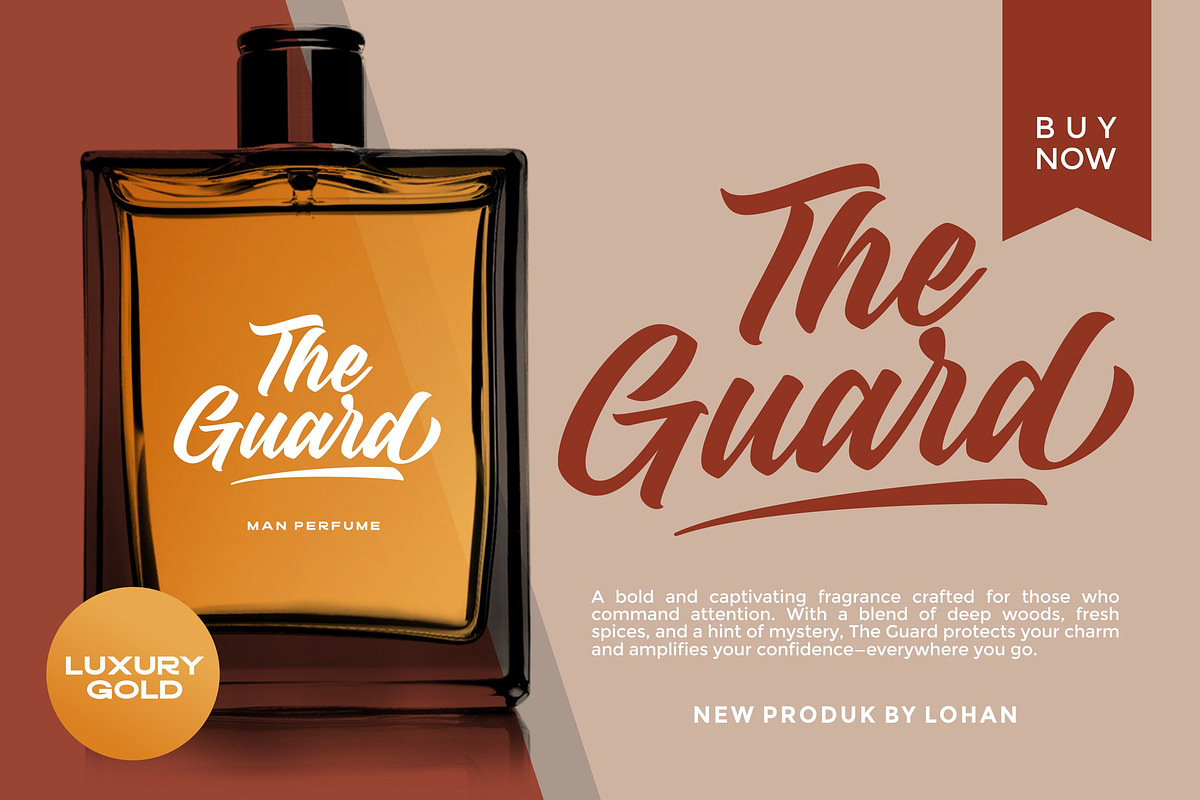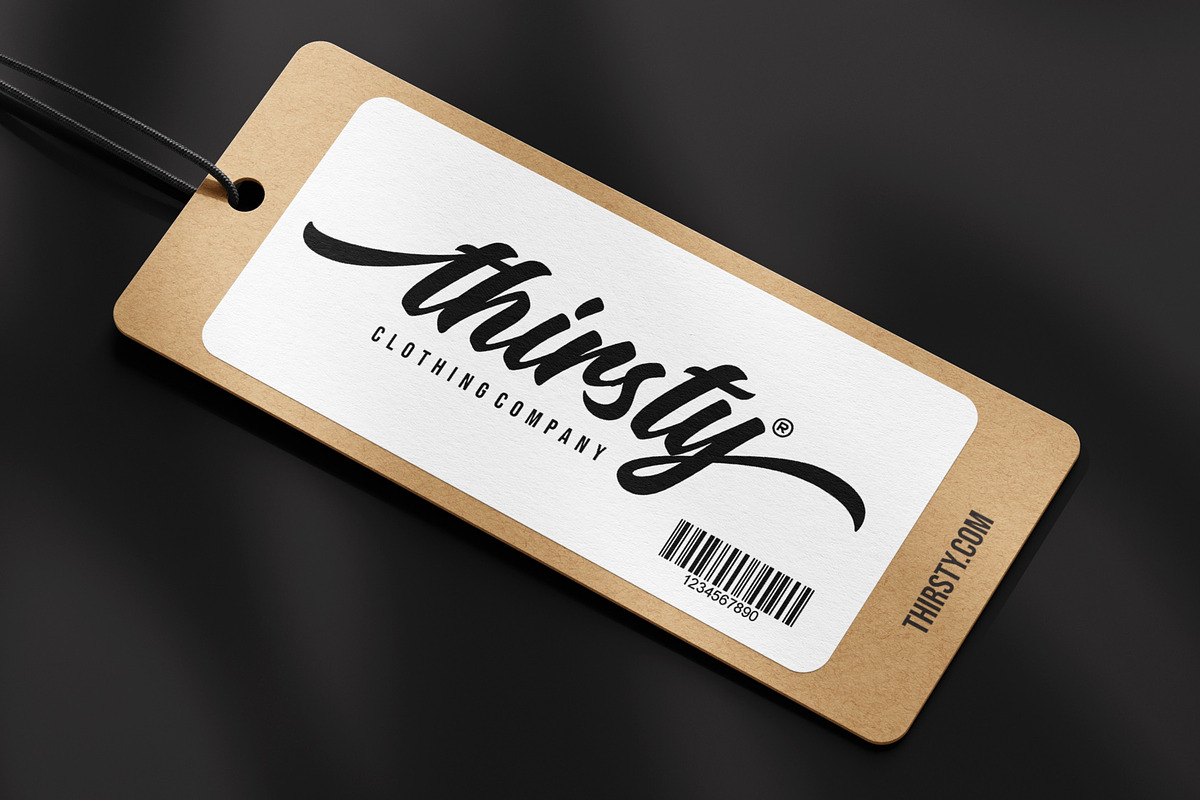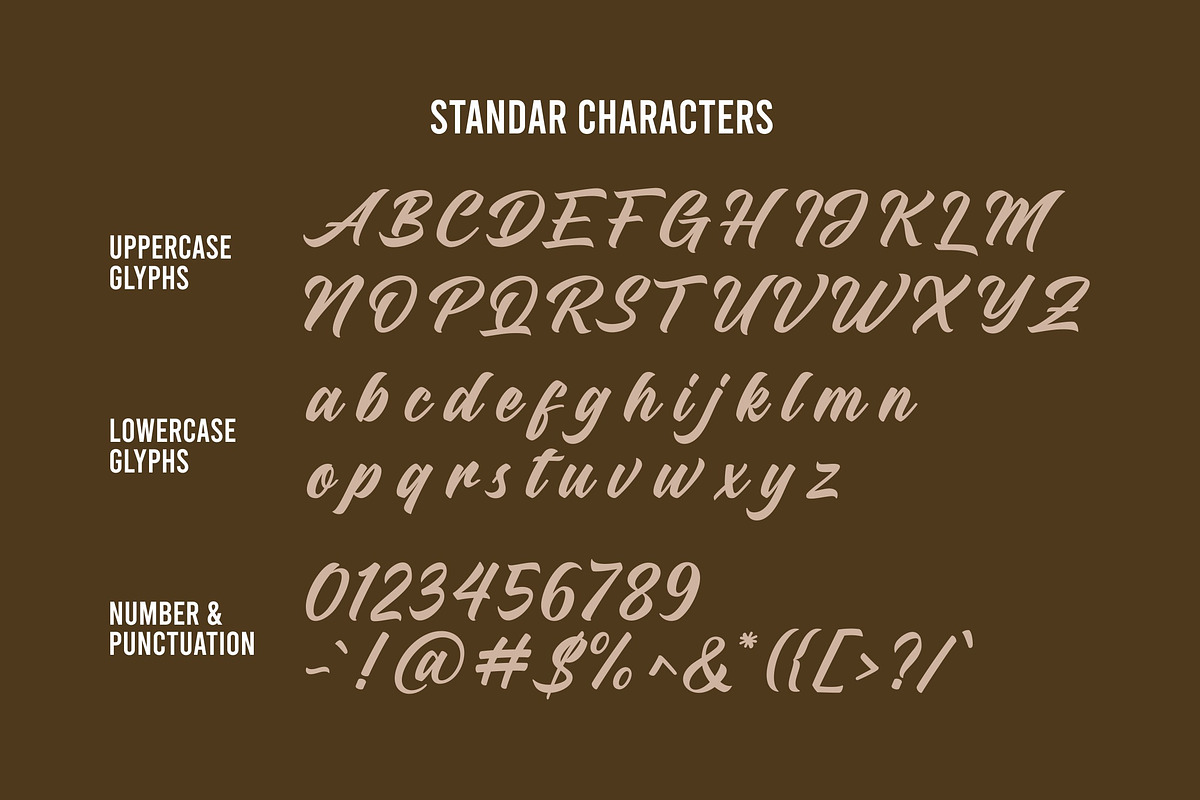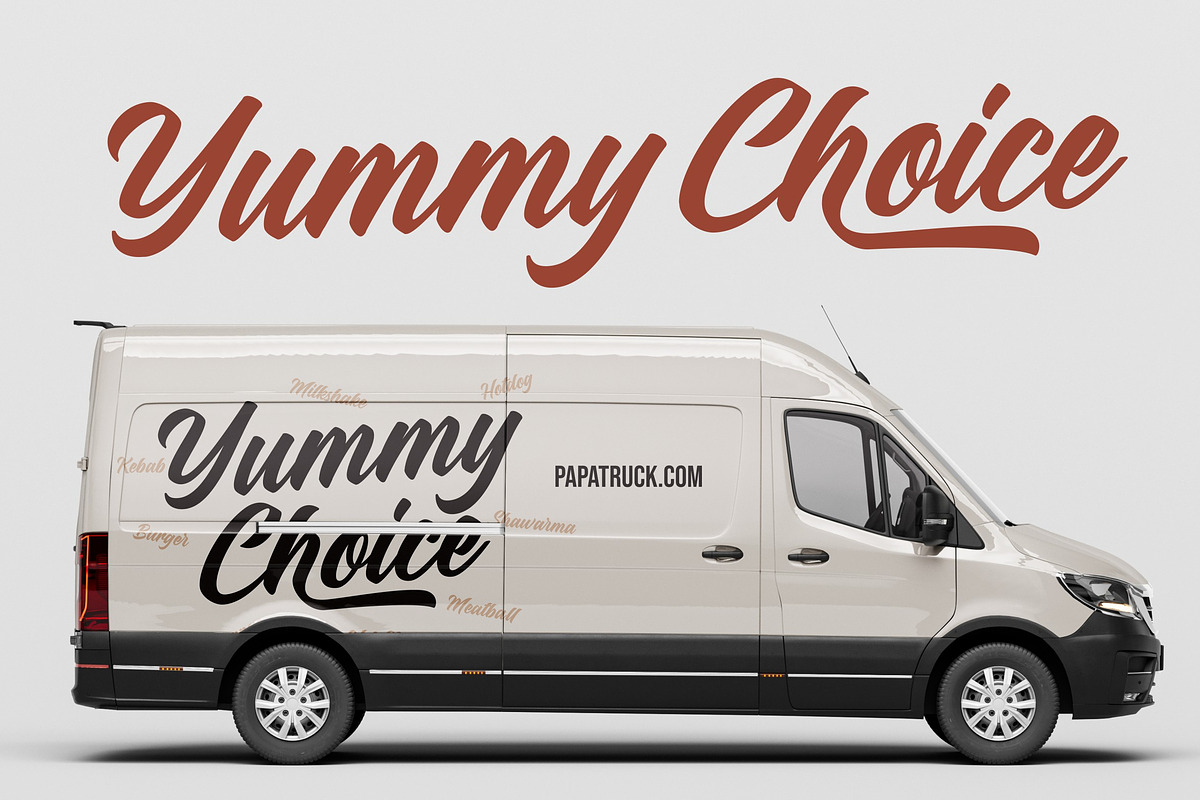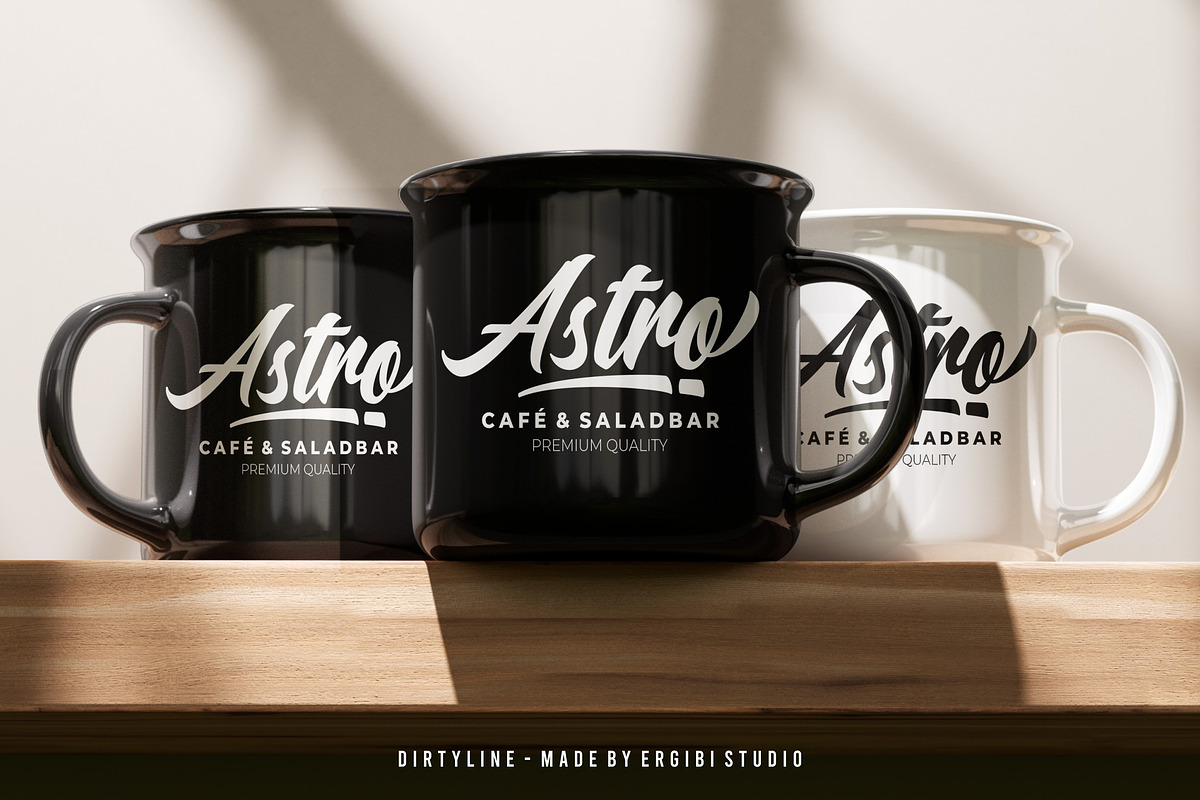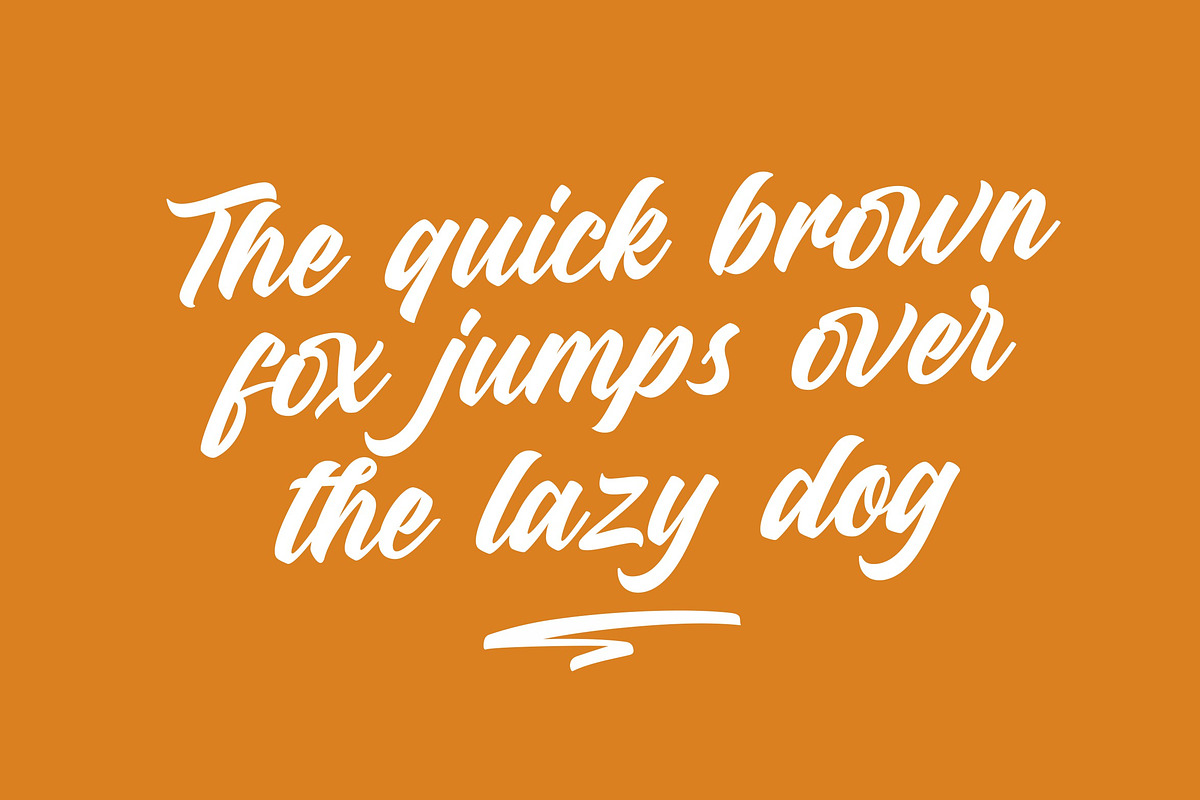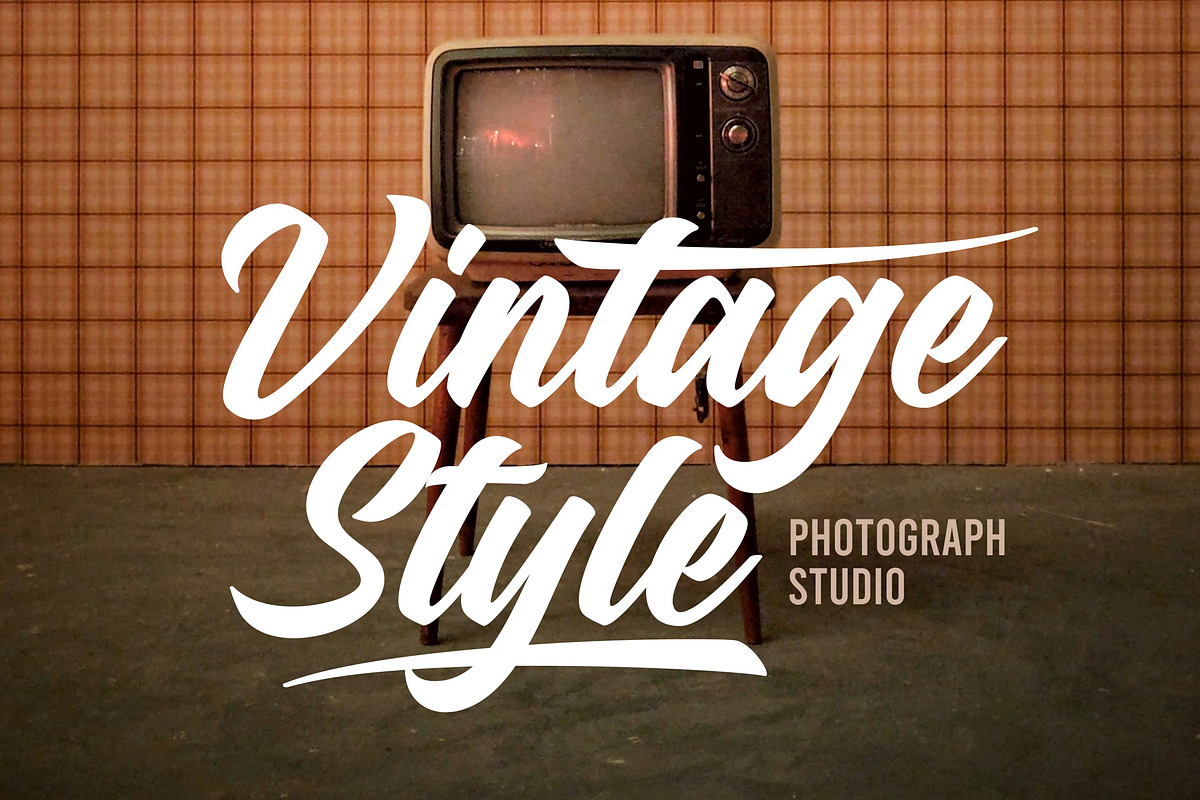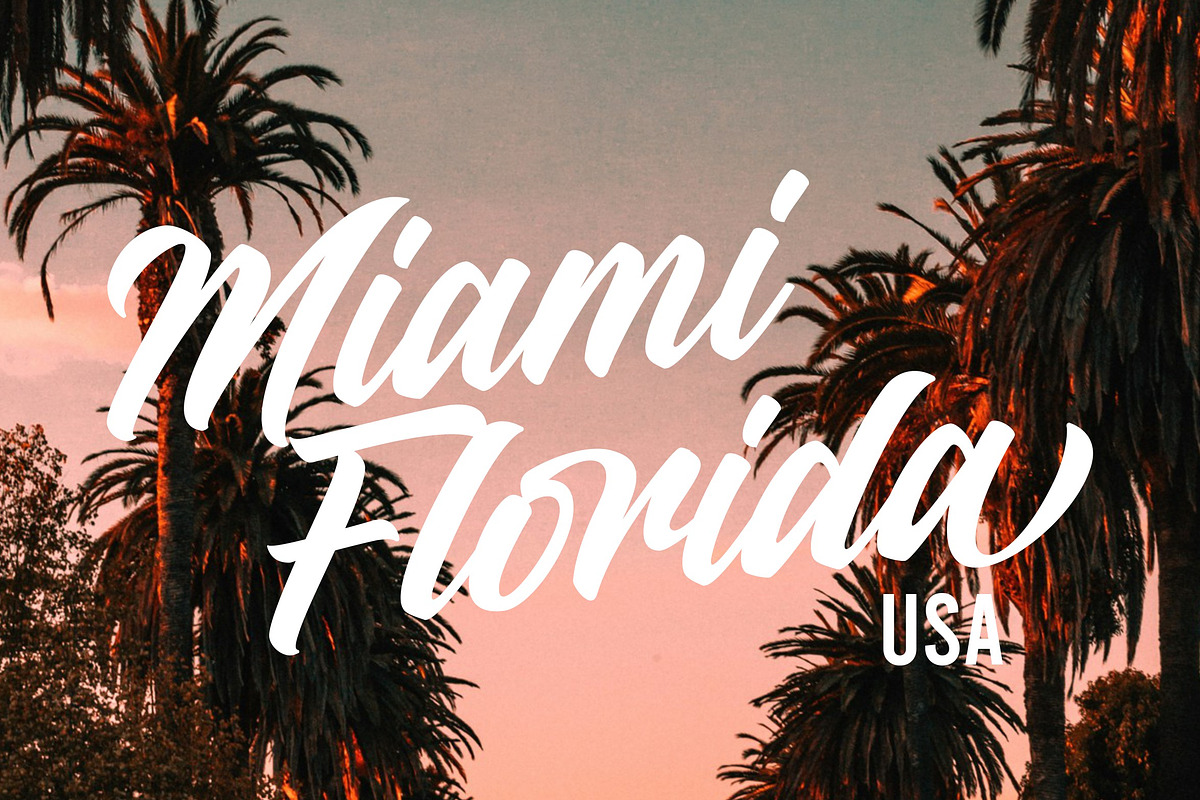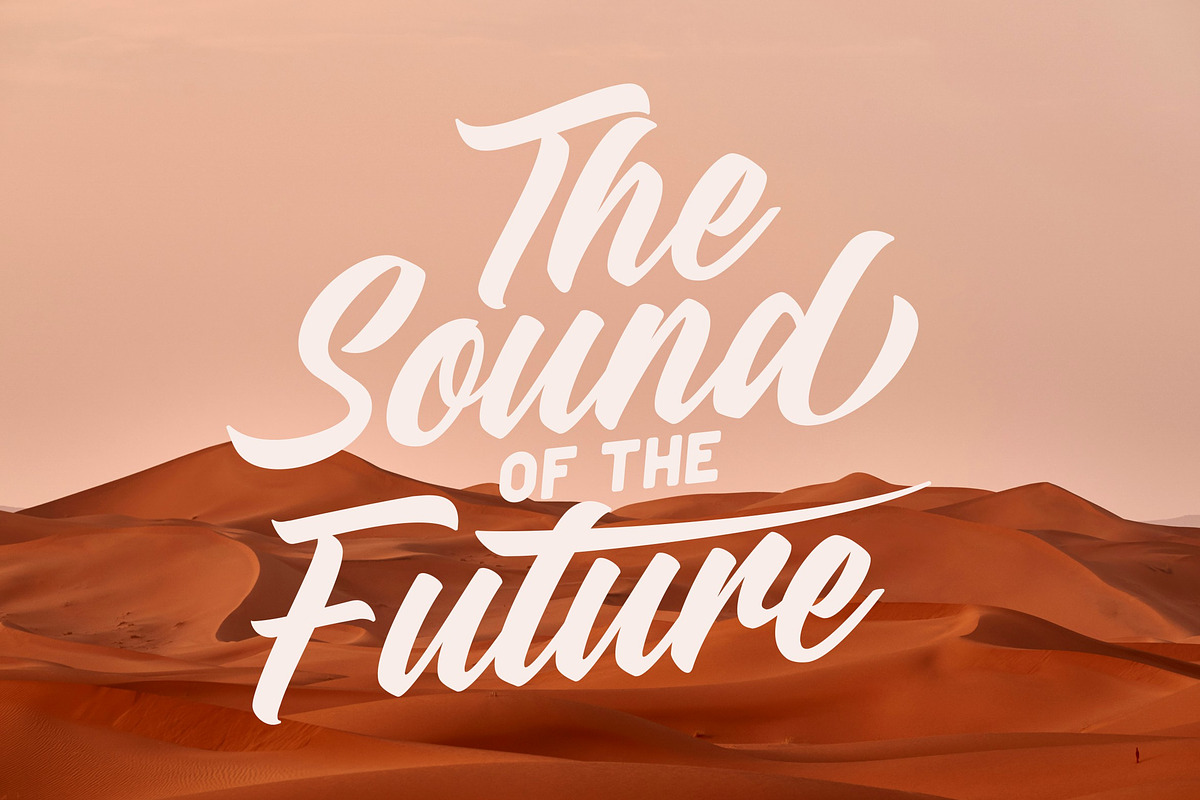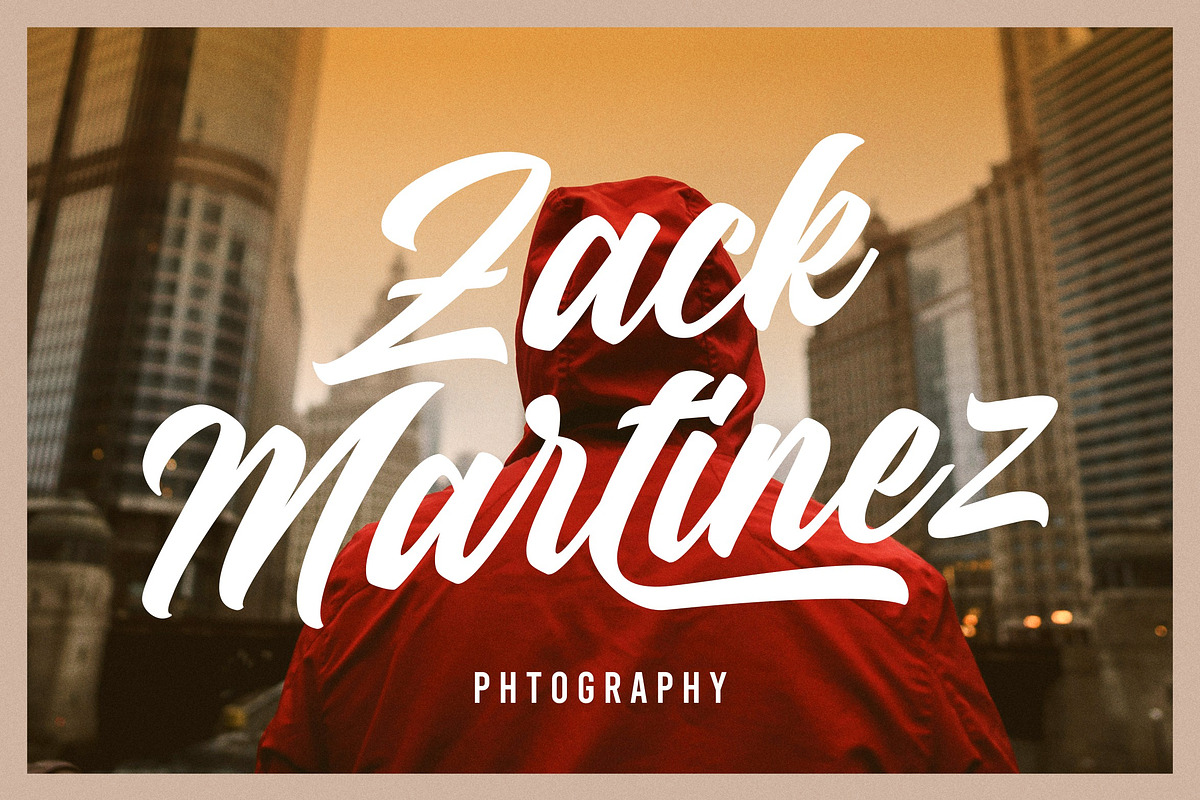
Dirtylane - Bold Script
Dirtylane is a bold and energetic script font, crafted with inspiration from the dynamic world of urban fashion. Perfect for elevating your creative works—be it logos, badges, clothing designs, product labels, headlines, posters, or any project that craves a touch of stylish calligraphy.
Equipped with uppercase and lowercase letters, numbers, punctuation marks, and a rich set of alternate characters and ligatures, Dirtylane offers endless customization possibilities to bring your designs to life with a unique, expressive flair.